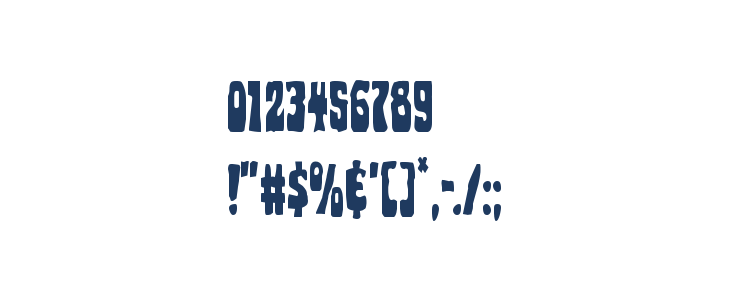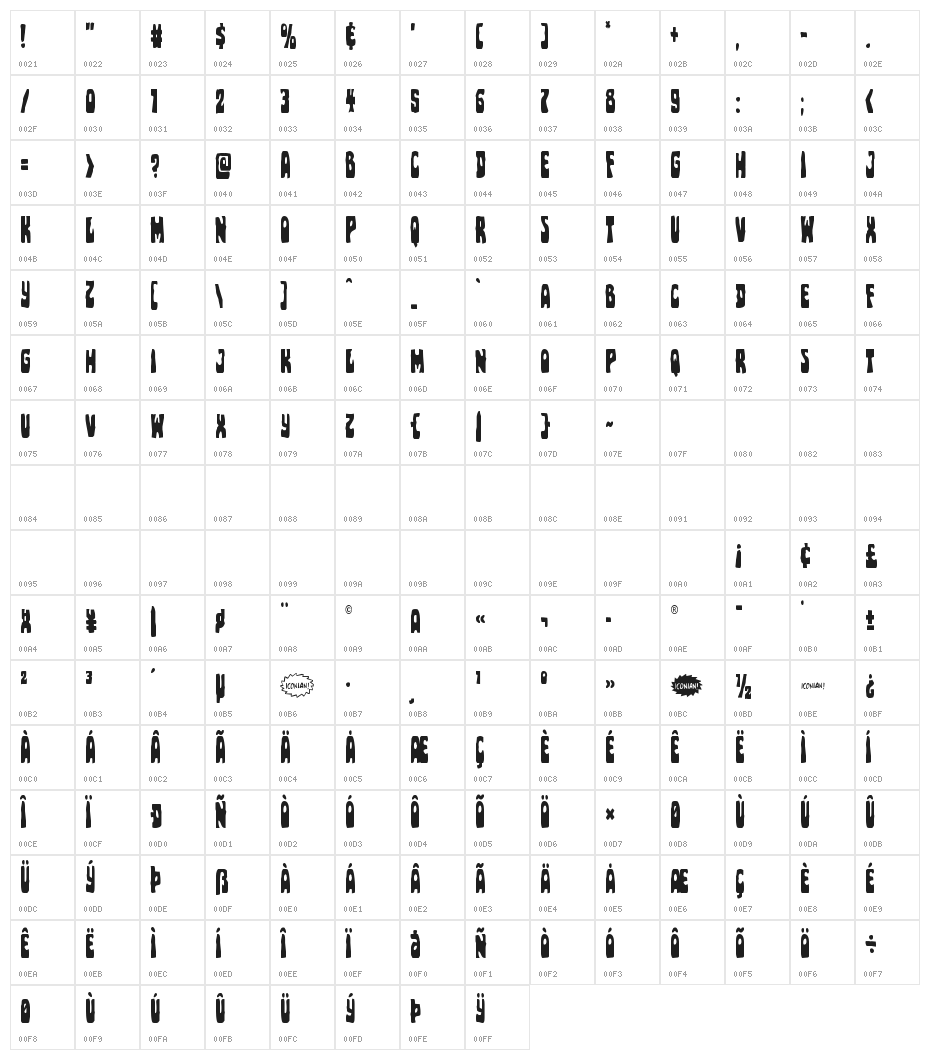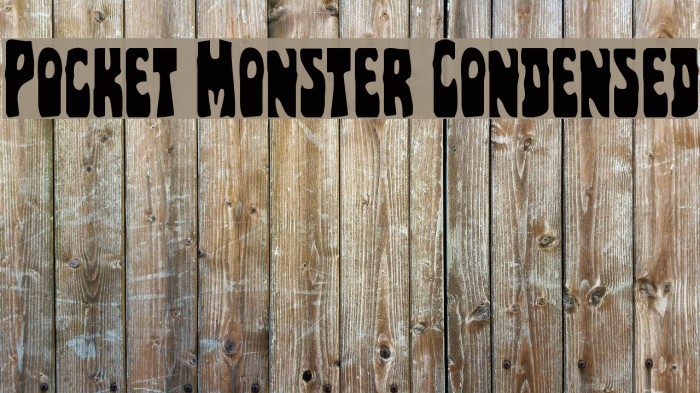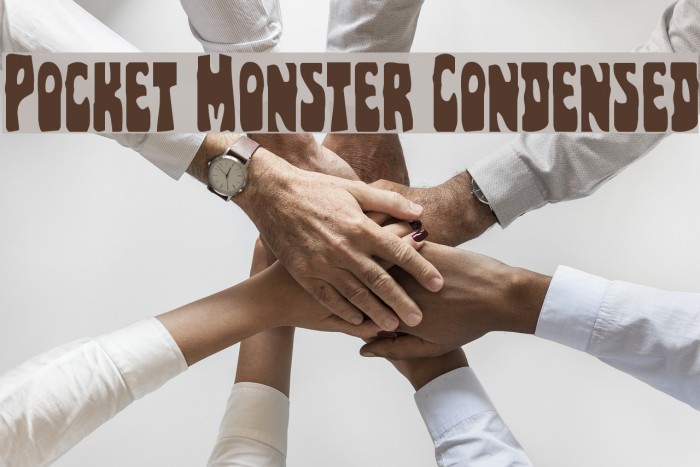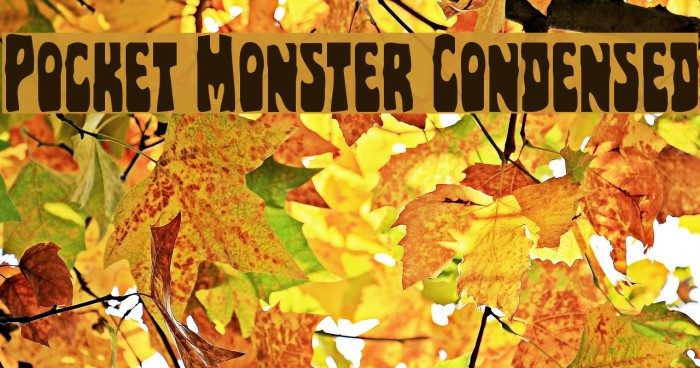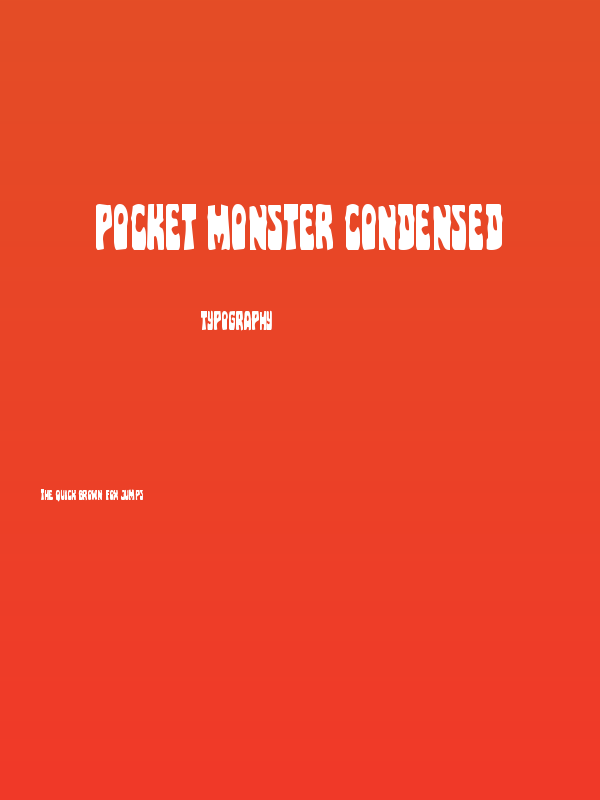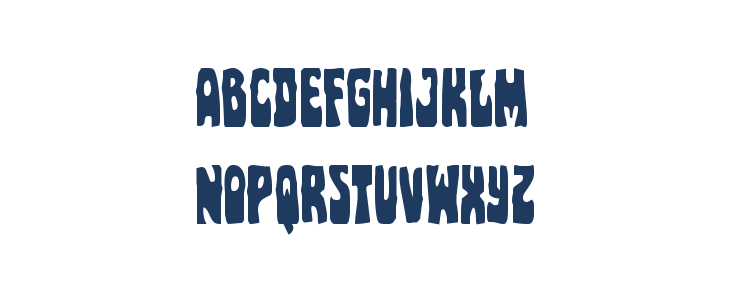
Pocket Monster Condensed Font
Pocket Monster Condensed Description
This font features a bold and playful design with a condensed structure, making it ideal for eye-catching displays. The characters are robust and slightly irregular, giving them a whimsical and dynamic appearance. The uppercase and lowercase letters maintain a consistent style, with thick strokes and minimal contrast. The numbers and special characters follow the same bold and playful theme, ensuring uniformity across all glyphs. This font's unique style makes it suitable for projects that require a fun and engaging visual impact.
| Proposed Projects | Ideal for children's books, game titles, posters, and playful branding. |